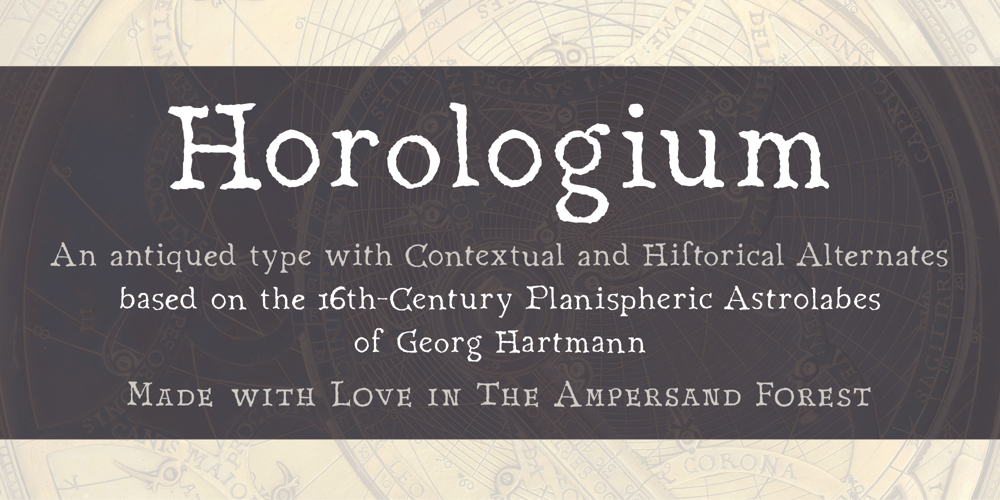
Horologium
Horologium font
Horologium Font Family was designed by DC Scarpelli and published by The Ampersand Forest. Horologium contains 1 styles and family package options. Horologium is an antiqued serif face with contextual and historical alternates inspired by the lettering on the 16th-century planispheric astrolabes of Georg Hartmann.It works beautifully as a historical face, but also as a spooky Halloween face!